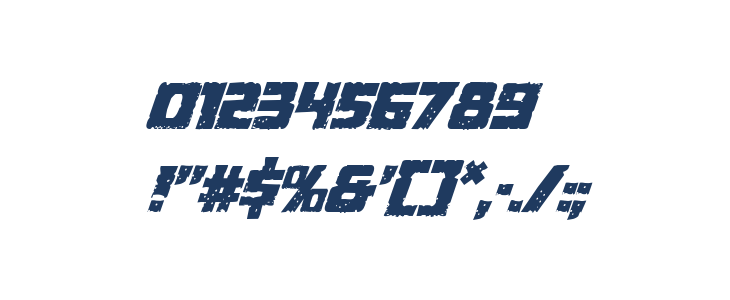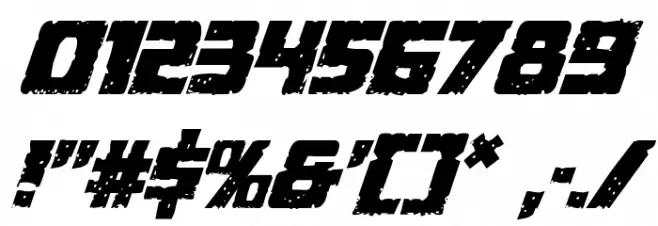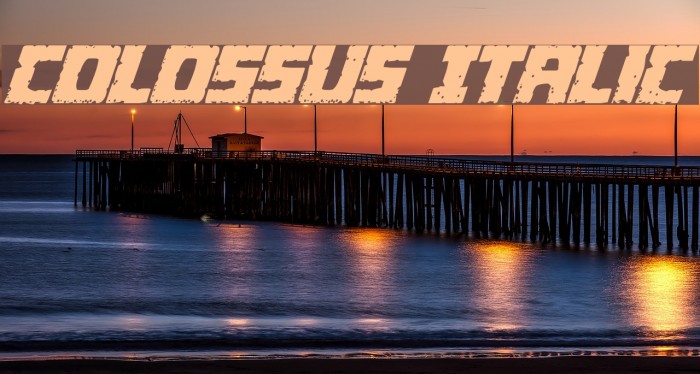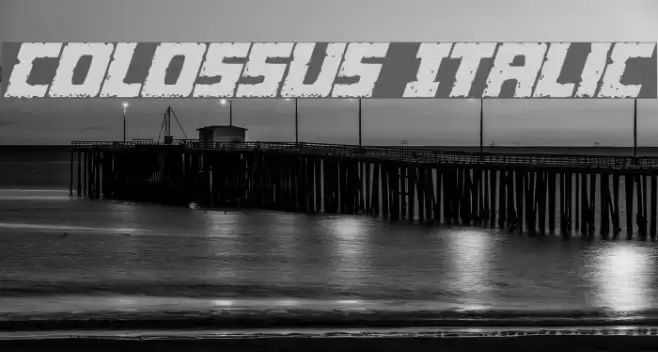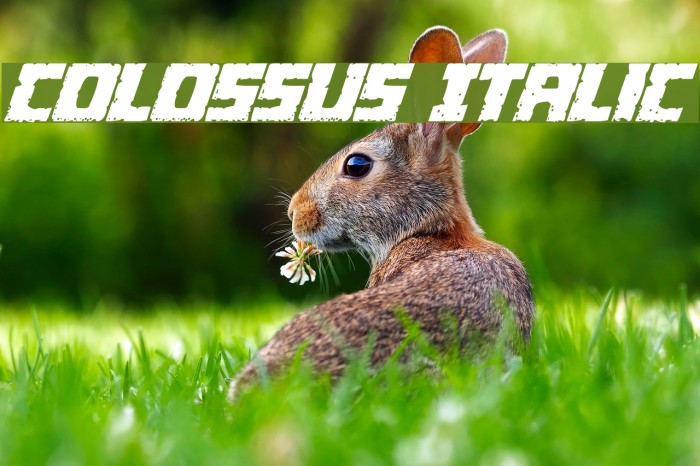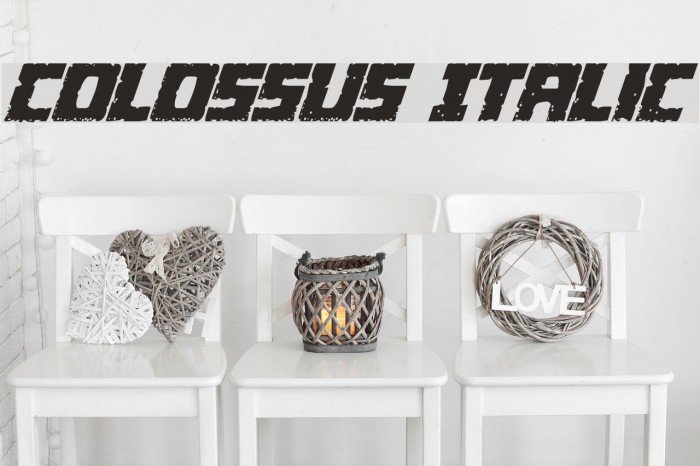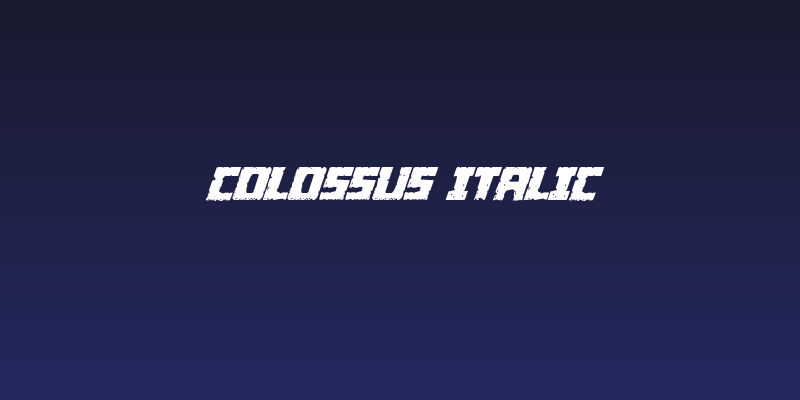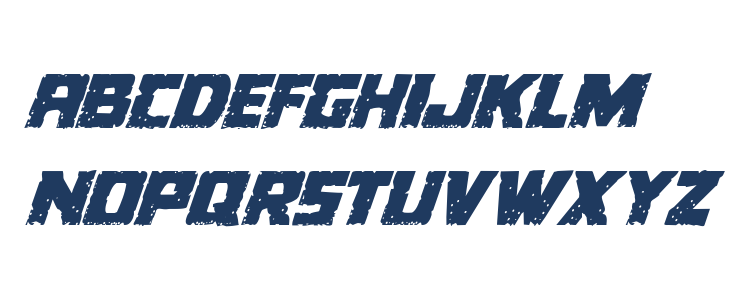
Colossus Italic Font
Colossus Italic Description
This font features a bold and dynamic style with a distressed texture that gives it a rugged, edgy appearance. The italicized slant adds a sense of motion and urgency, making it stand out in any design. The uppercase and lowercase letters maintain a consistent weight, contributing to a cohesive look. The numerals and special characters are equally bold, ensuring they are easily readable. This font's unique texture and boldness make it ideal for impactful designs.
| Overall Style | Modern, Edgy |
| Proposed Projects | Ideal for posters, album covers, video game graphics, and branding that requires a bold, edgy aesthetic. |